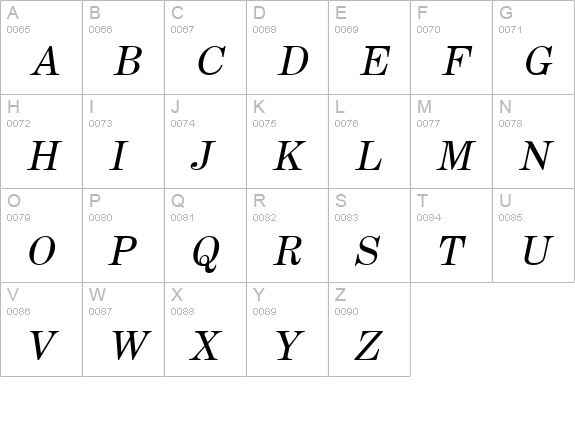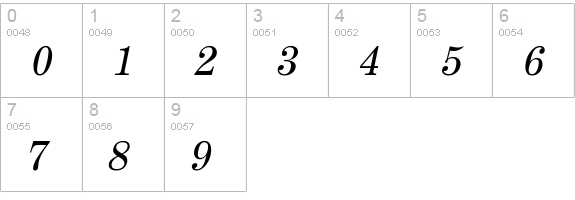
Annual Italic is a distinctive, italic variant in the Annual typeface family \xE2\x80\x94 well suited to design and typography projects.
The Annual Italic font is a modern and sophisticated typeface that exudes elegance and style. Its sleek and slanted design adds a touch of flair to any project, making it perfect for luxury brands, fashion magazines, and upscale marketing materials. The italicized characters create a sense of movement and dynamism, adding a unique twist to your text. Best of all, the Annual Italic font is available for free download at FontsMarket.com, making it easily accessible to designers and creatives looking to enhance their projects with a touch of class. Don't miss out on the opportunity to elevate your designs with this stunning and versatile typeface.